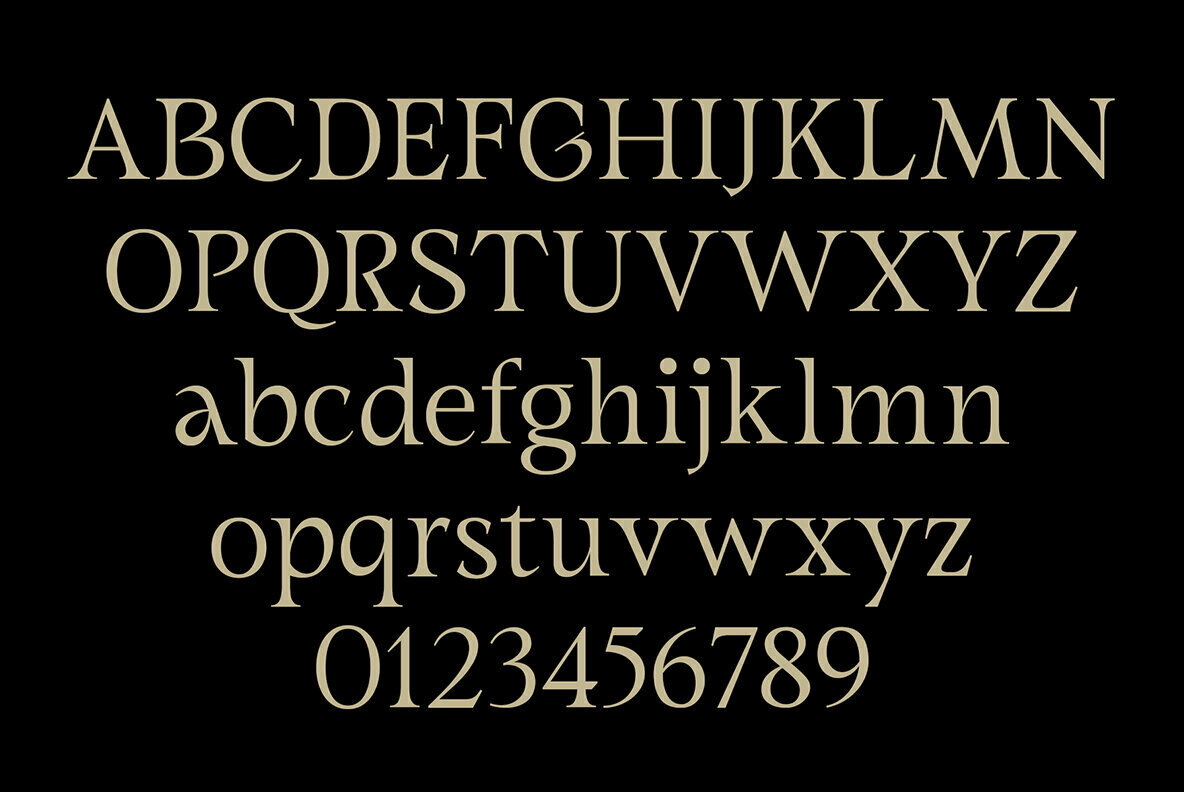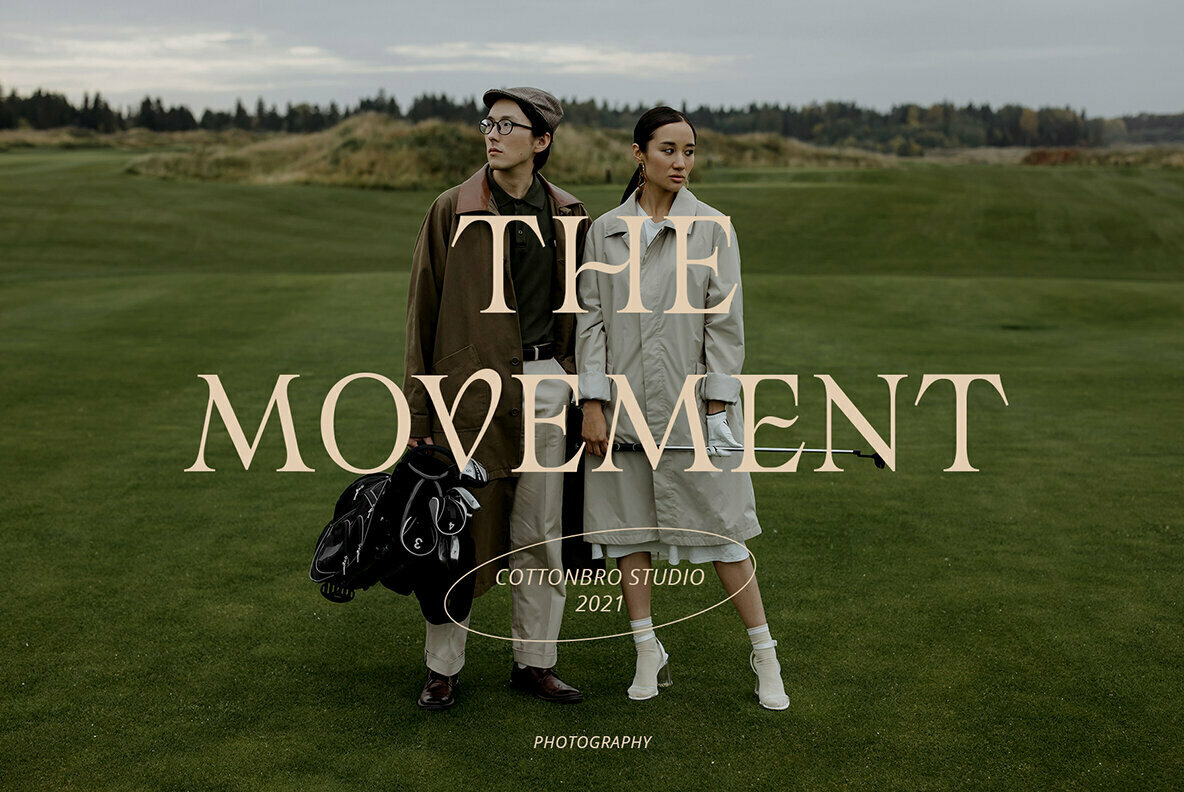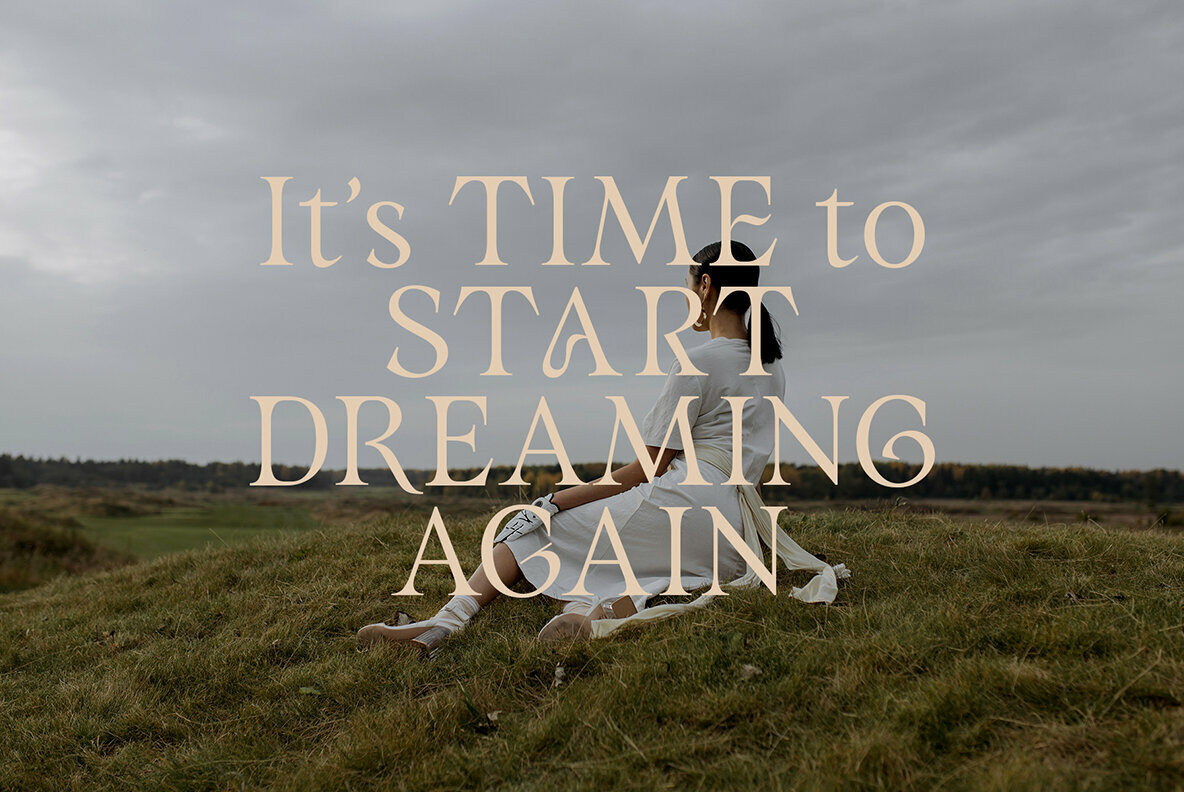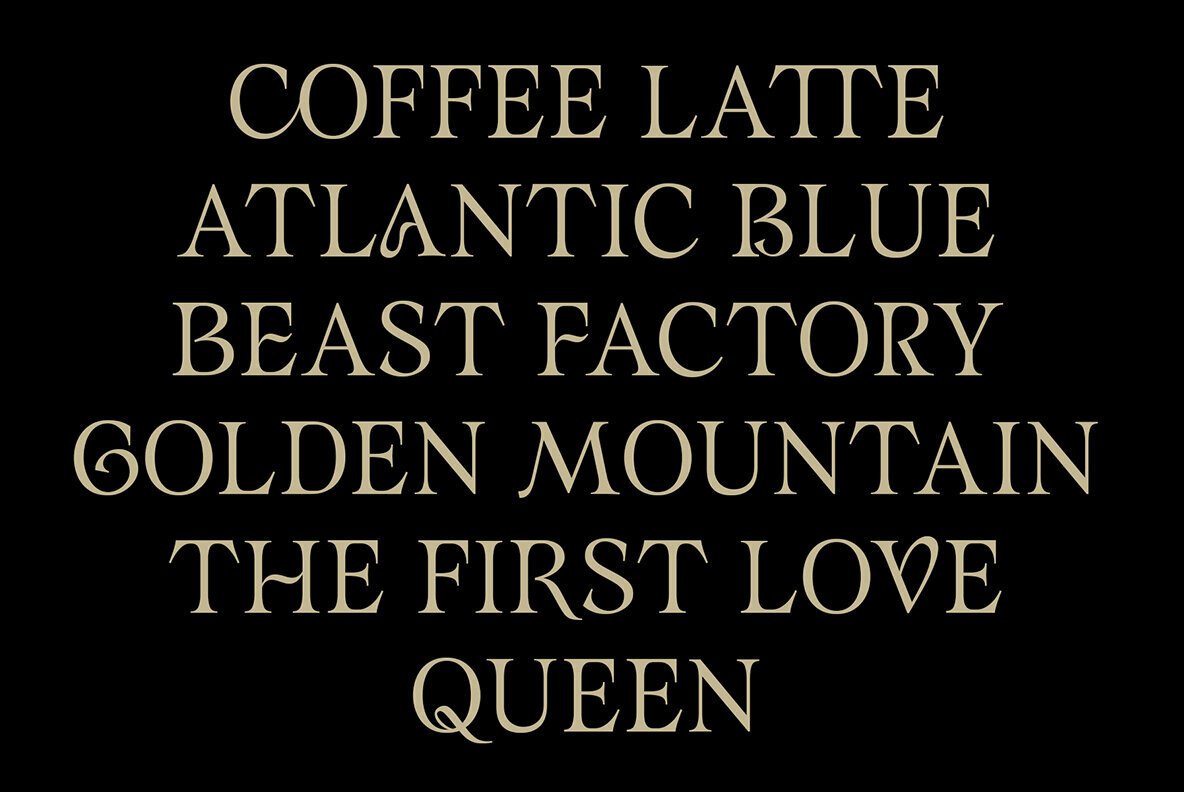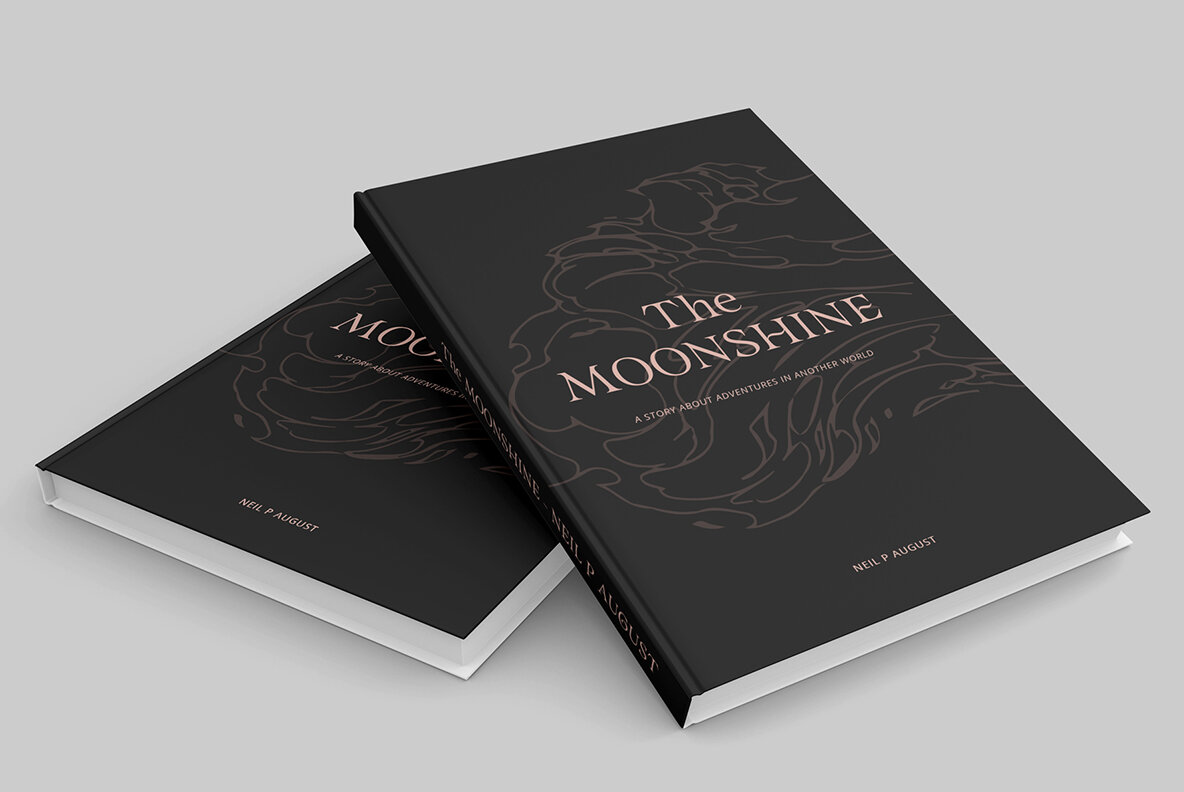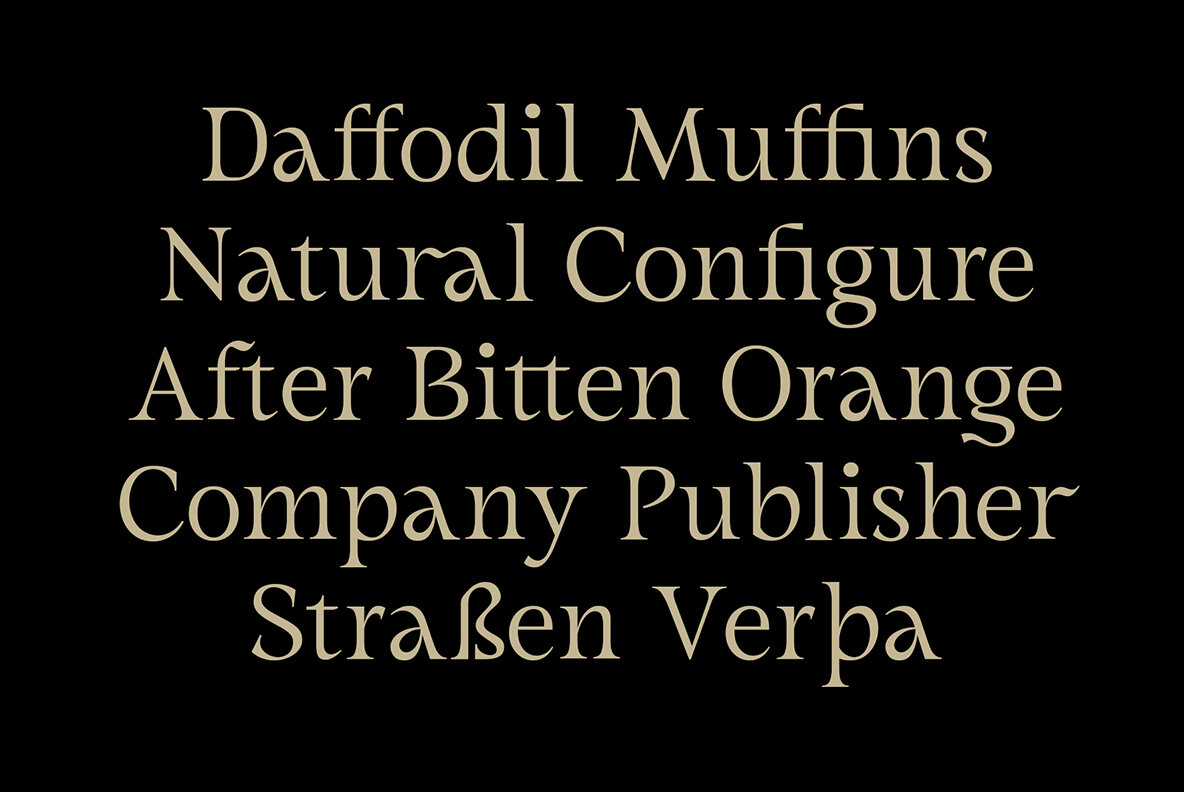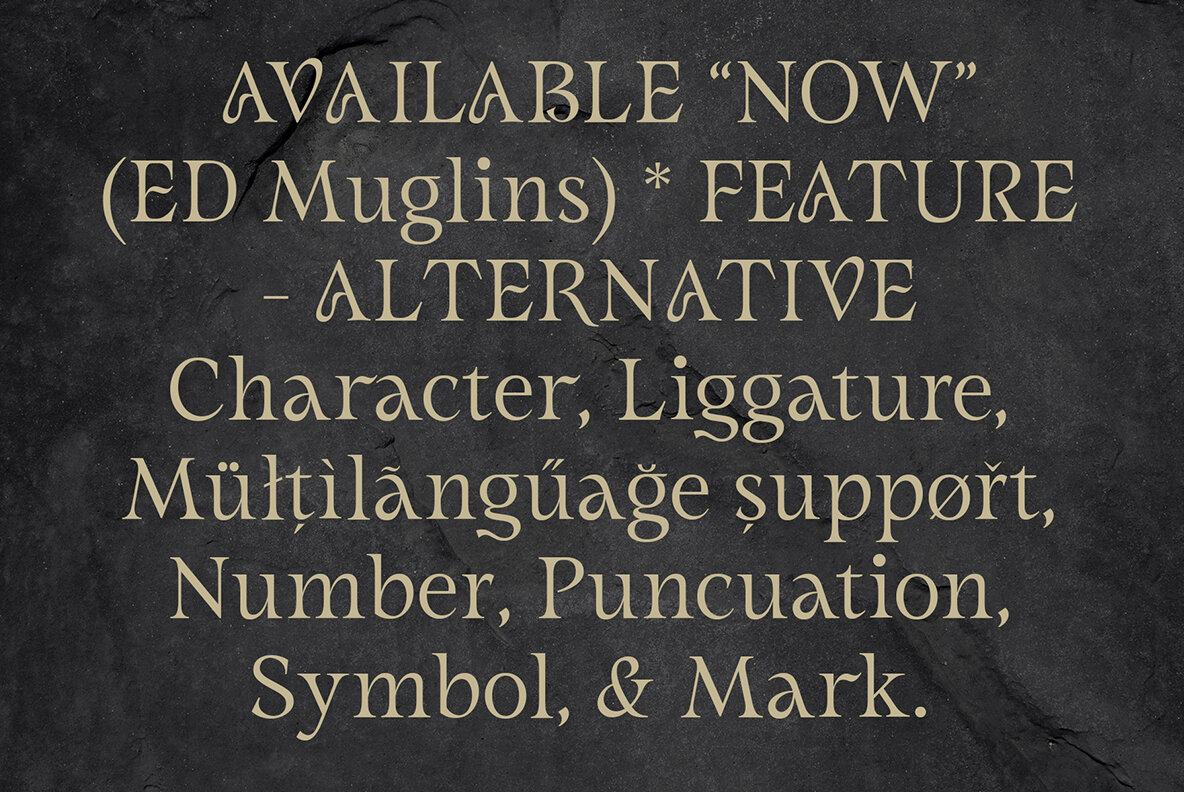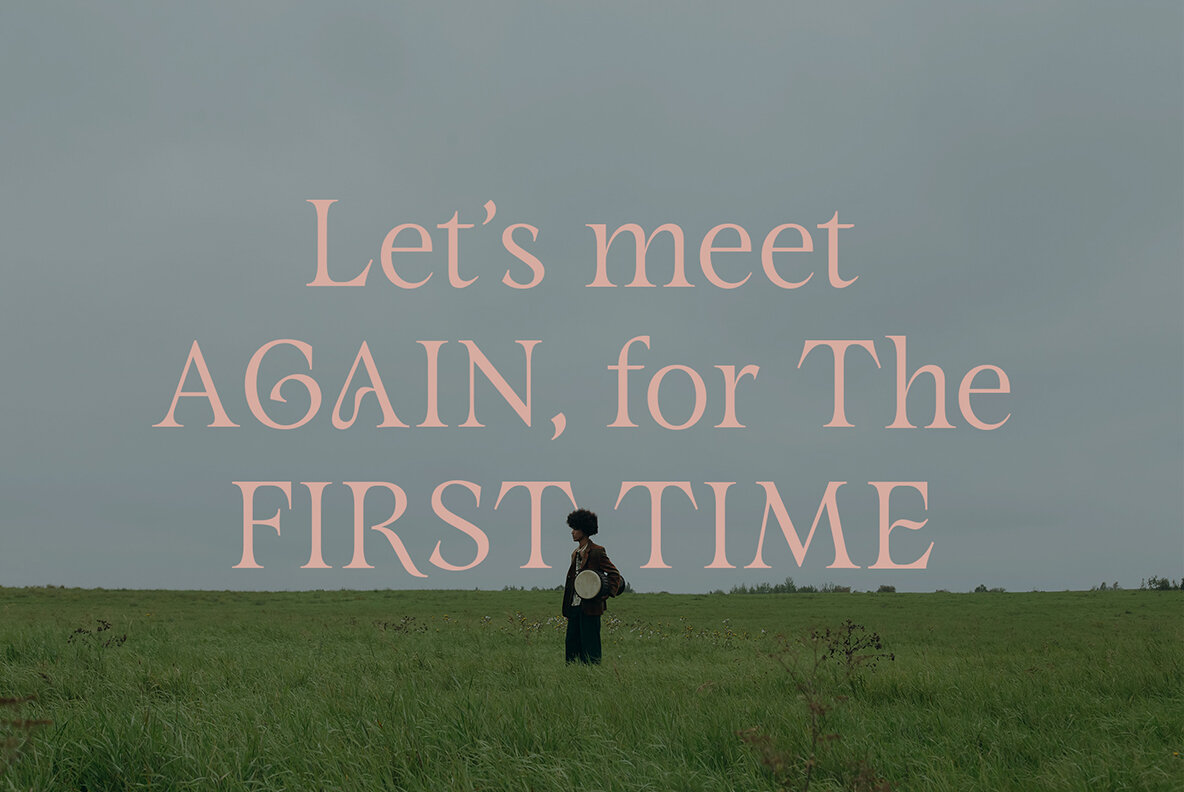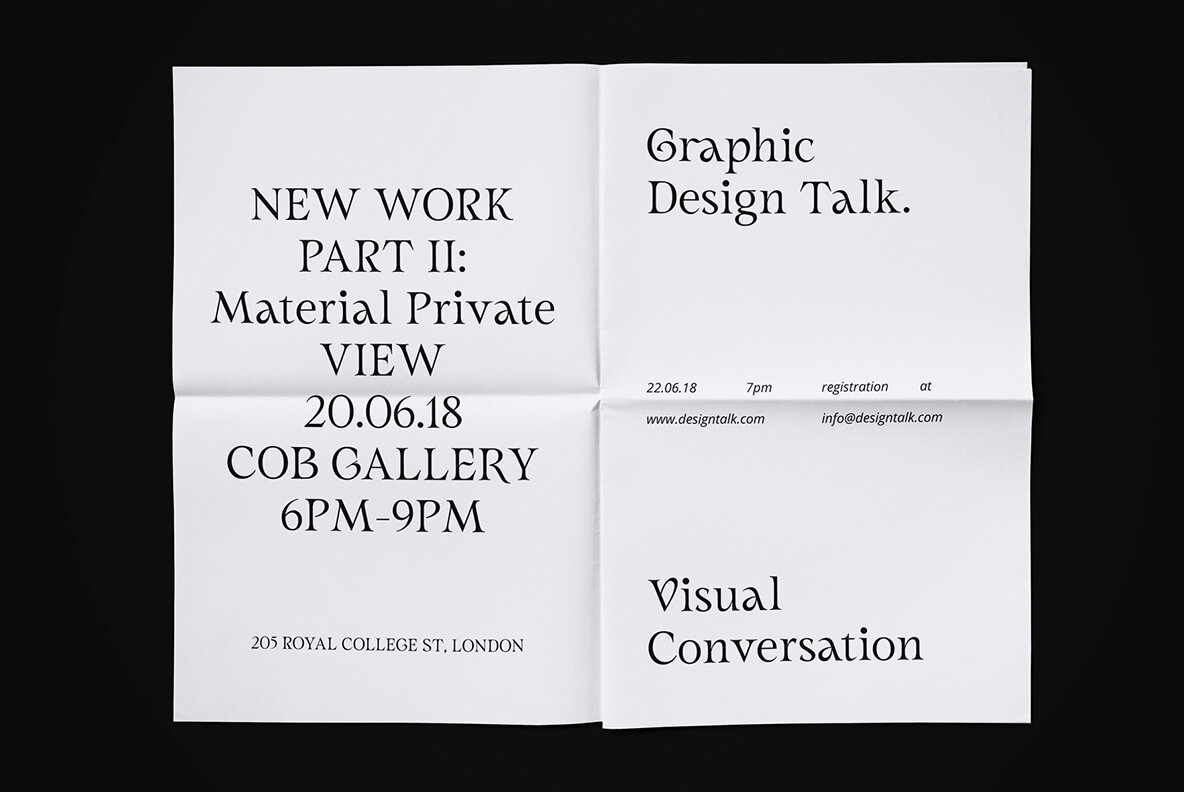
ED Muglins Font
ED Muglins Regular
ED Muglins is a roman serif font that has an elegant and classic style. This font is inspired by roman serif writing which is designed to make it look more modern and also displays a classic side.
ED Muglins is equipped with several features such as alternative characters, ligatures, and multi-language support that makes it easier for you to design. This font is perfect for your design needs such as poster design, logo design, branding, social media design, book, magazine, etc.